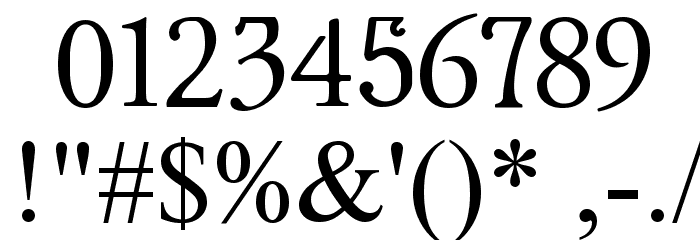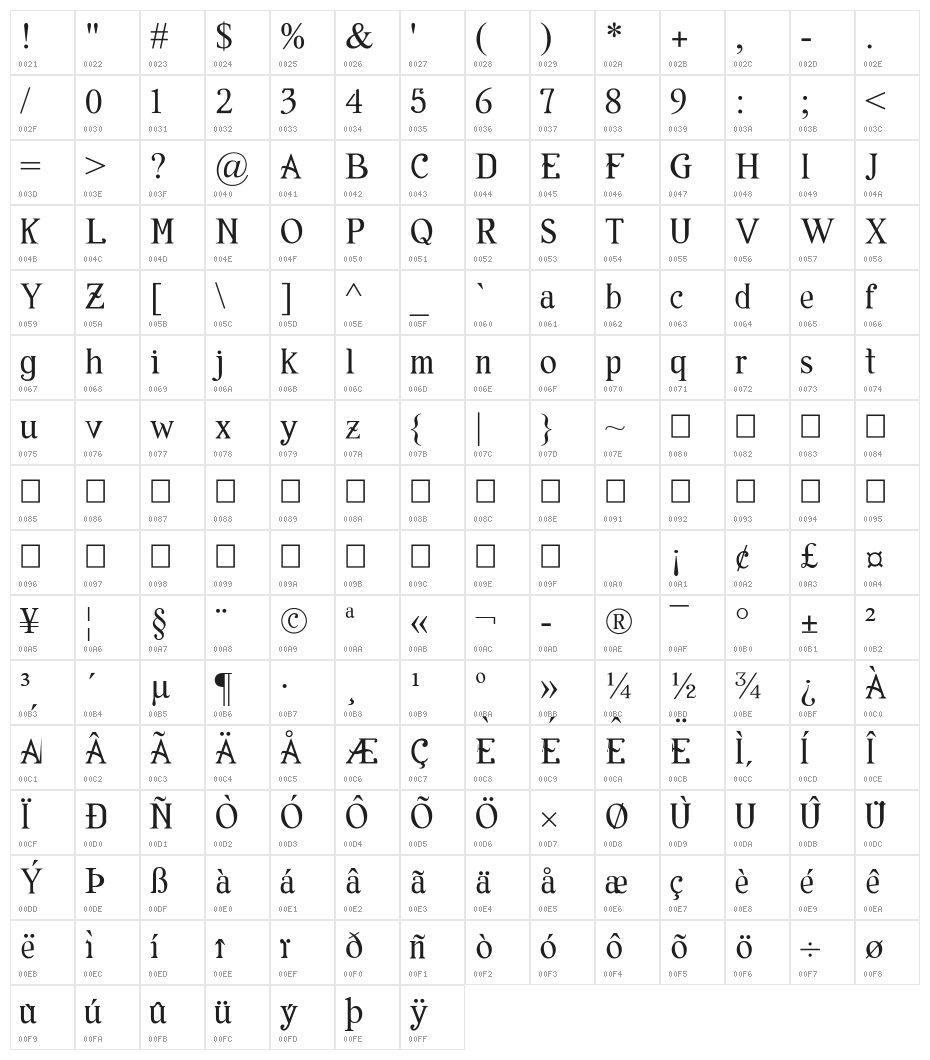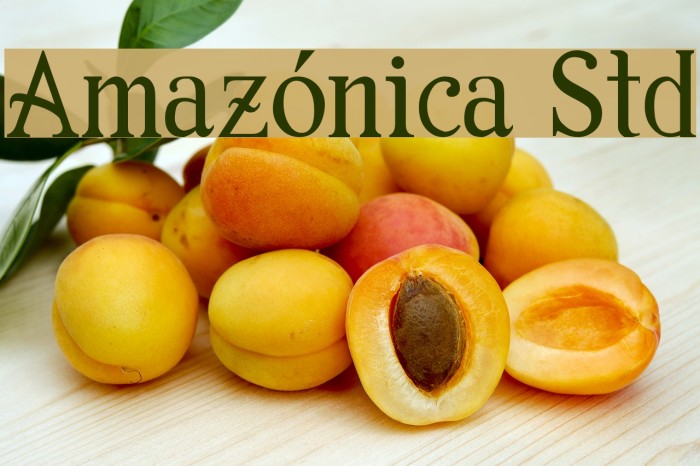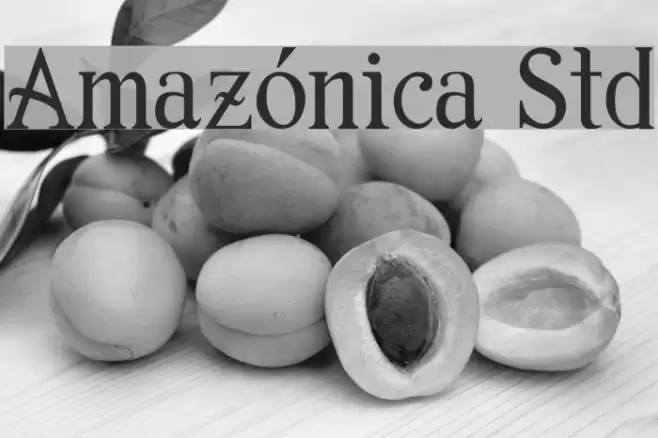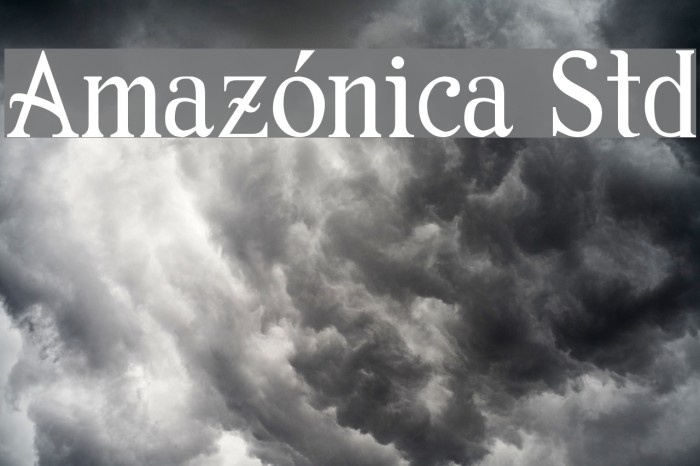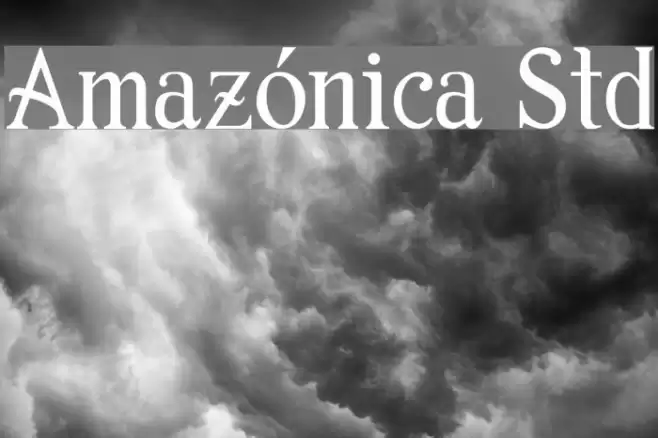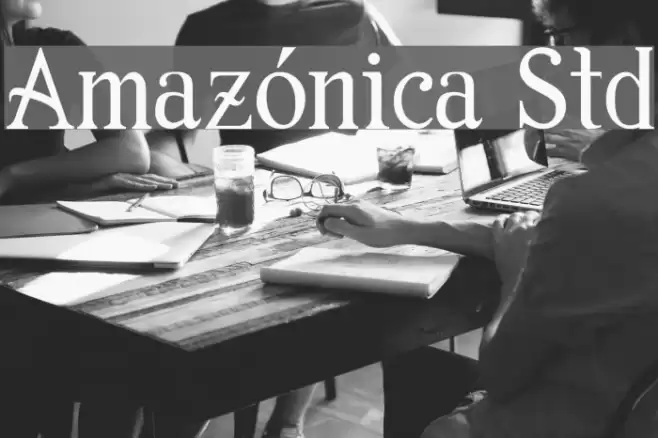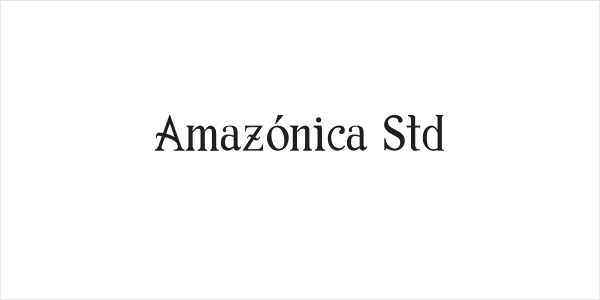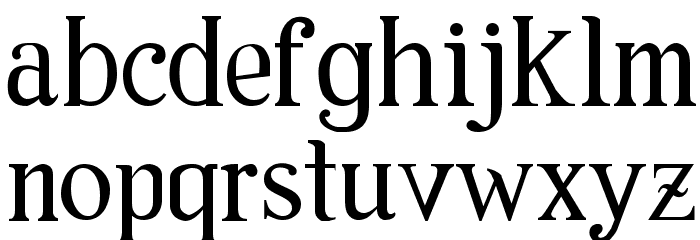
Amazónica Std Font
Amazónica Std Description
This font features a classic serif style with elegant and pronounced serifs that give it a timeless and sophisticated appearance. The uppercase letters are bold and commanding, while the lowercase letters maintain a refined and balanced look. The numerals are clear and distinct, making them easy to read. Special characters are well-integrated, maintaining the font's overall aesthetic. The design is versatile, suitable for both traditional and modern applications, offering a harmonious blend of formality and readability.
Overall StyleClassic
Use CaseHeadlines, Body text, Logos
Proposed ProjectsIdeal for book covers, editorial layouts, formal invitations, and branding materials that require a touch of elegance.